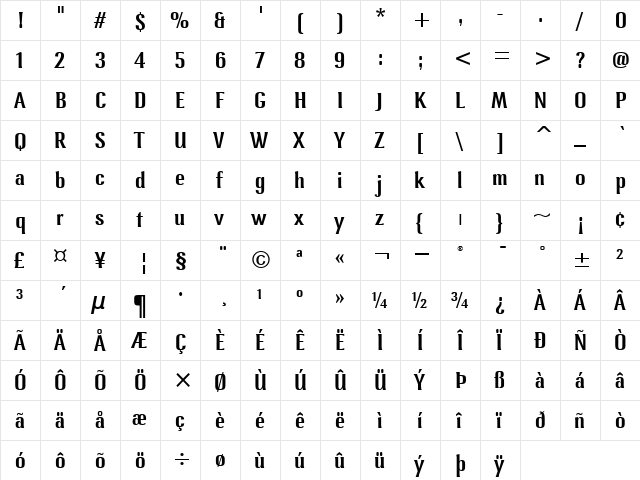
LennoxMdITC TT Regular
Design Context for LennoxMdITC TT Typeface
LennoxMdITC TT takes a measured approach to typography — its balanced proportions and neutral character make it a reliable workhorse for both digital and print work.